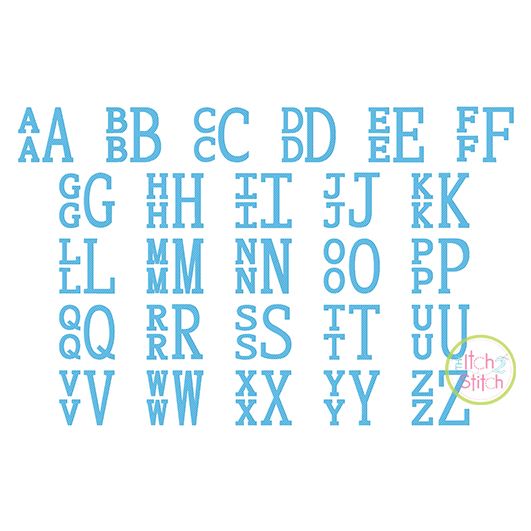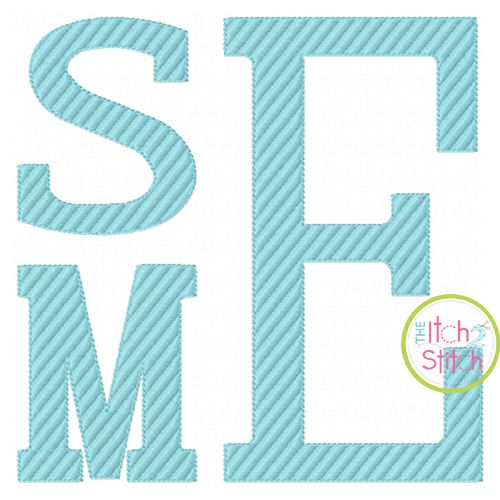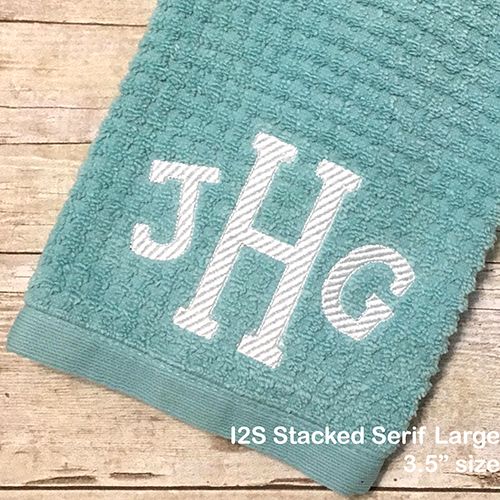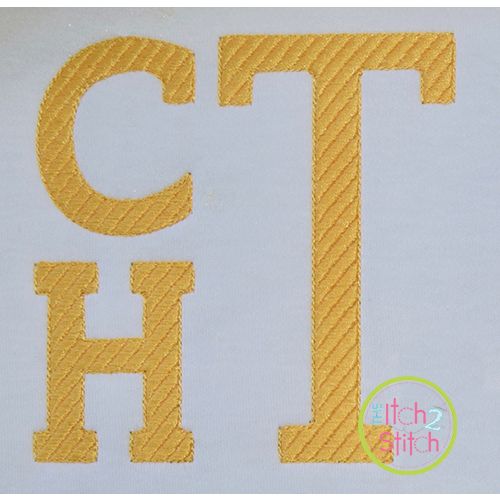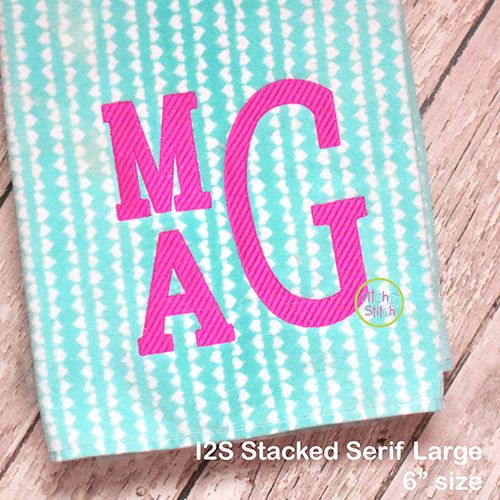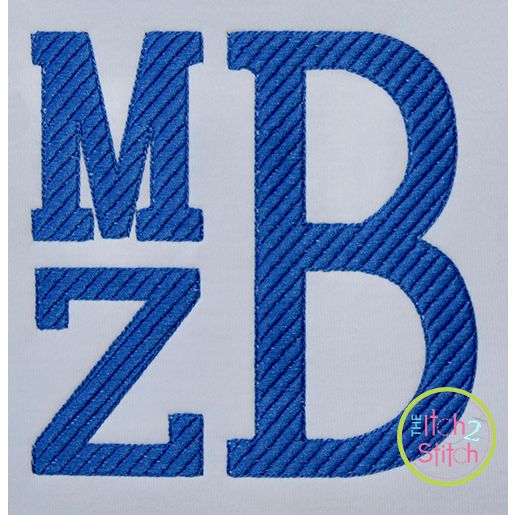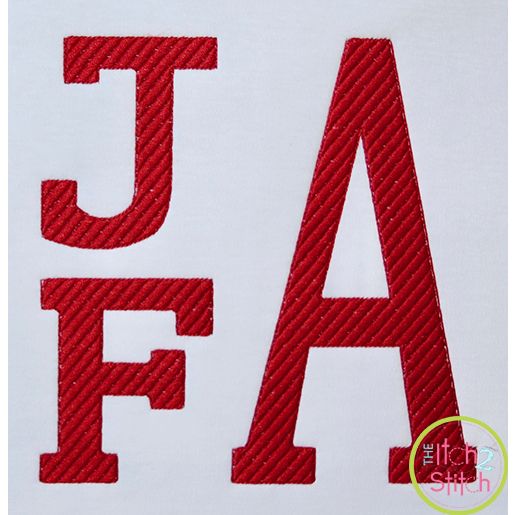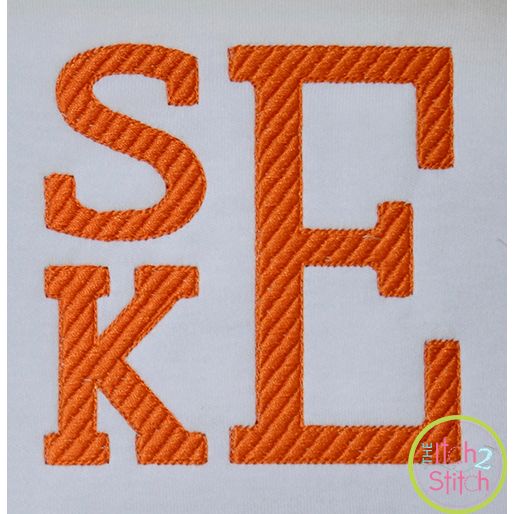
You will receive all Aa-Zz letters (52 files) in nine sizes.Ā For each size of the monogram there are two styles of letter. Use two "lowercase" letters stacked on the left and a "capital" letter on the right from the same size folder to create the square shaped monogram.Ā These letters feature a decorative fill pattern.